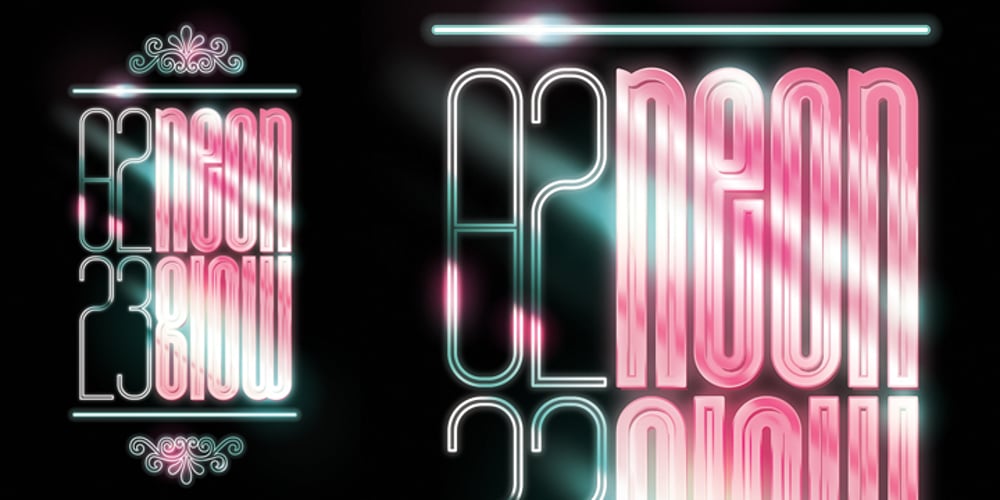
Bohema
Bohema font
Bohema Font Family was designed by João Oliveira and published by Onrepeat. Bohema contains 8 styles and family package options. Bohema is an Art Deco font with a modern twist, available in 8 distinct styles + 4 alternative ones as a bonus in the full pack and ideal for headlines, branding, merchandising and a special occasion that requires a different typeface. By buying the full pack you will receive, free, 4 alternative families which include alternative characters.